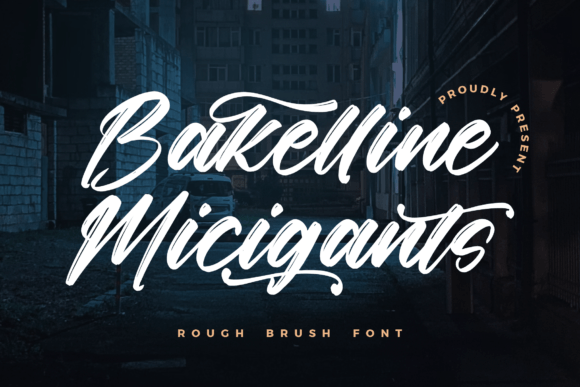
As a designer, have you ever stared at a blank canvas, waiting for inspiration to strike? It’s that moment of creative block where you wish you had the perfect tool to bring your ideas to life. For those moments, Perspectype Studio has created the Bakelline Micigants – Rough Brush Font, a beautiful script font that’s perfect for any project.
The Bakelline Micigants Font is designed to add a touch of elegance and sophistication to your designs. Suitable for logos, branding projects, homeware designs, and more, this font is a versatile tool that can help you create stunning visual effects. Whether you’re working on a product packaging, a quote, or a poster, the Bakelline Micigants Font is sure to elevate your design game.
For designers, the Bakelline Micigants Font is a valuable asset that can help you achieve professional-looking results with ease. Its unique script style and rough brush texture make it perfect for creating eye-catching designs that stand out from the crowd.
Bakelline Micigants Font Key Features
- Unique Characteristics: This font features a unique blend of geometric and humanist elements, resulting in a distinctive and sophisticated aesthetic.
Bakelline Micigants Font Review
At first glance, I was drawn to the unique and playful style of the Bakelline Micigants font. ✨ Its whimsical feel and subtle imperfections make it a great choice for creative projects where a touch of personality is needed.
One of the things I appreciate about this font is its versatility. ✨ It can be used for headings, titles, and even body text, making it a great all-around choice for designers. Additionally, the font’s varied line widths and quirky character shapes add visual interest and depth to any design.
- ⚠️ Limited character set: The font only includes a limited range of characters, which may not be suitable for languages that require a wider character set.
- ⚠️ Not ideal for large blocks of text: Due to its playful and imperfect style, the font may not be the best choice for large blocks of text or for designs that require a clean and straightforward look.
Overall, I think the Bakelline Micigants font is a great addition to any designer’s toolkit. While it may not be suitable for every project, its unique style and versatility make it a great choice for creative and experimental designs.
The Bakelline Micigants font is a great choice for creating unique and eye-catching designs.
Use it for titles, headings, and other emphasis text to add a touch of sophistication to your designs.